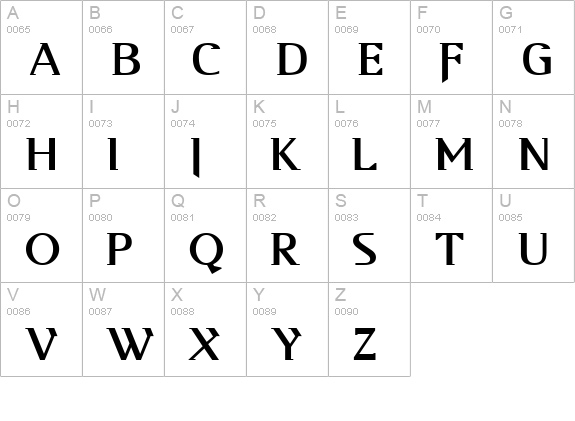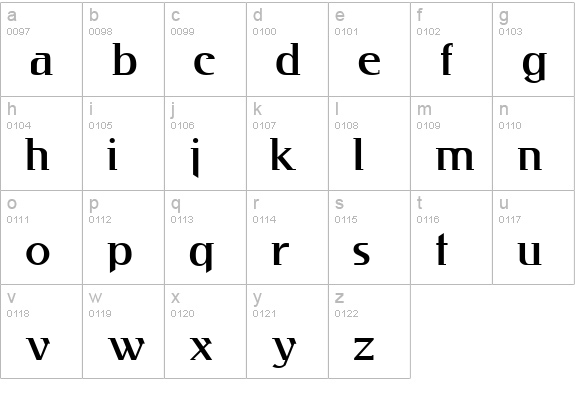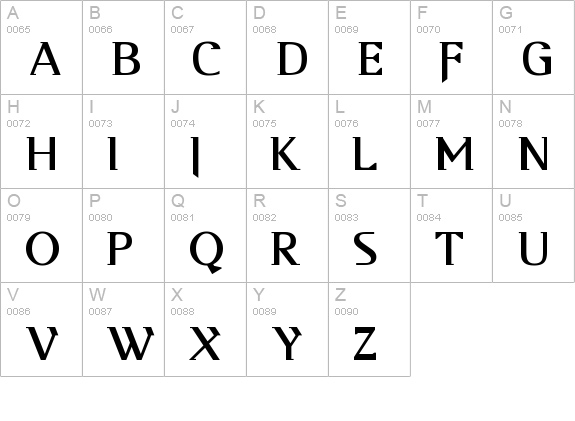
Kabos Gyula Font Details
Kabos Gyula font is a stunning display font that exudes elegance and sophistication. Its unique design combines modern elements with a touch of vintage charm, making it the perfect choice for a wide range of projects. Whether you're creating a logo, designing a poster, or crafting a stylish invitation, Kabos Gyula font will effortlessly elevate your design to the next level. What sets Kabos Gyula font apart is not only its captivating aesthetics but also its versatility. With its bold and concise letterforms, this font is easily readable even at smaller sizes, ensuring that your message is delivered with clarity and impact. Its clean lines and balanced proportions make it a timeless choice that will stand the test of time. The best part? Kabos Gyula font is free! That's right, you can download this incredible font for absolutely no cost at FontsMarket.com. This means you can enjoy the beauty and versatility of Kabos Gyula font without any financial burden. It's a fantastic opportunity to enhance your design projects without breaking the bank. So, why wait? Don't miss out on the chance to add Kabos Gyula font to your font library. Head over to FontsMarket.com now and download this remarkable font for free. Unleash your creativity and bring your designs to life with the exquisite beauty of Kabos Gyula font.